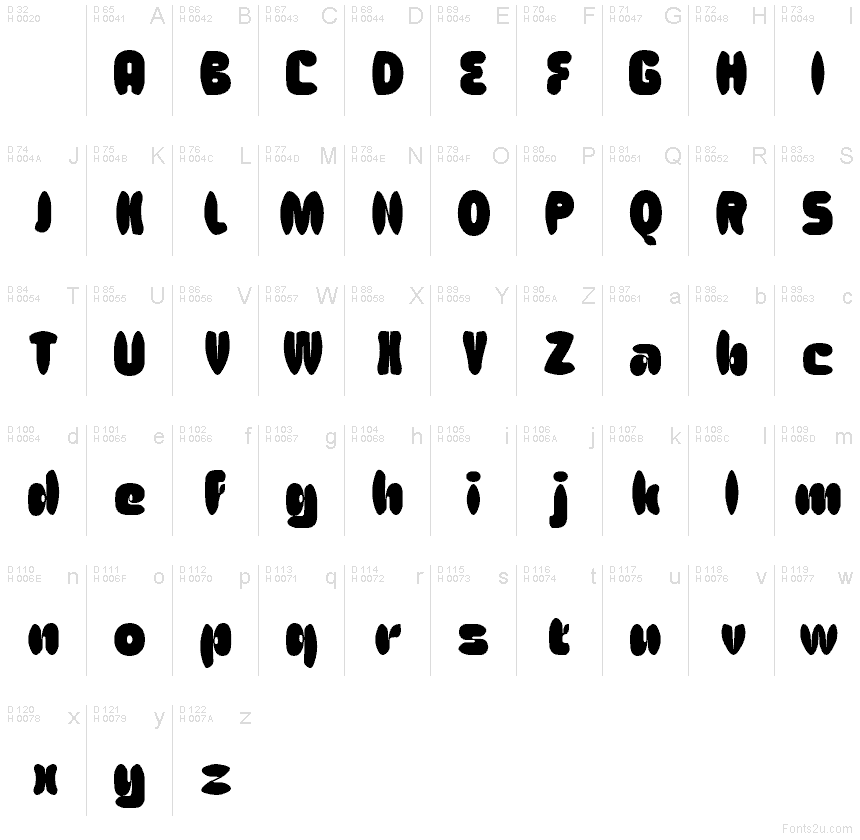
CSCompanyDrawn-Regular Demo
CS Company Drawn font by Craft Supply Co. is a bold display font with a cartoon style and a friendly appearance. Its rounded form brings it to a playful, fun design that is both approachable and versatile. The contemporary casual style makes this free modernist type a flexible pick for many purposes.
Apps include personal branding or visual identity tasks, logotype design projects built around a name or symbol, labels and packages exploring whimsical concepts, official website graphics: blogs/social media channels (both commercial & non-commercial), online courses promotional images among others—use it essentially anywhere!